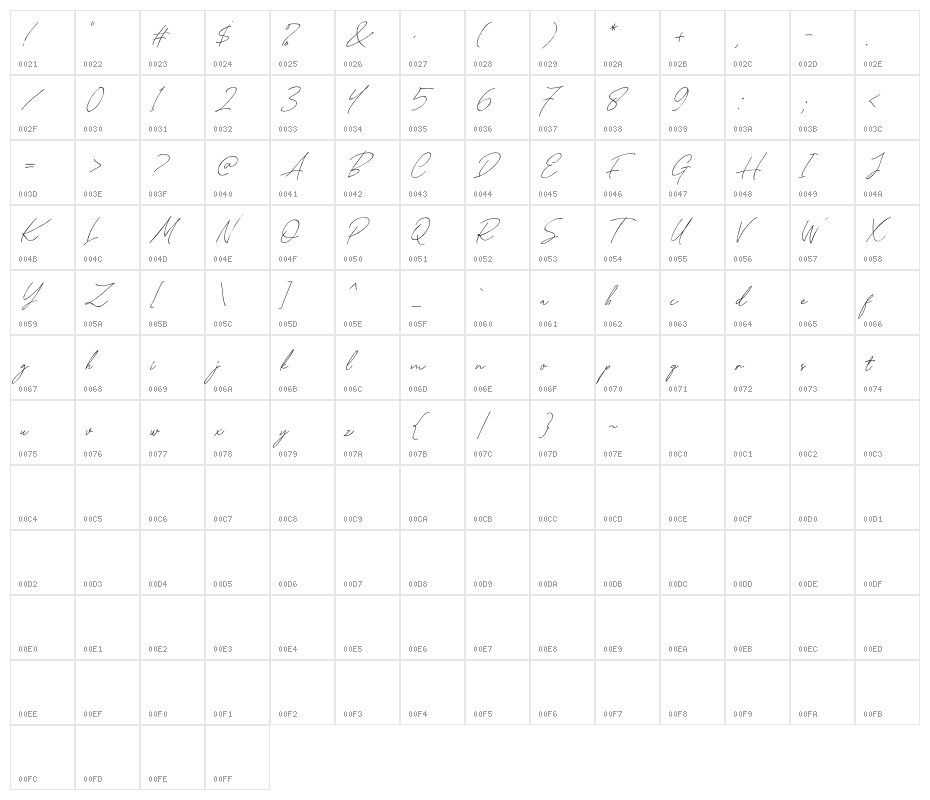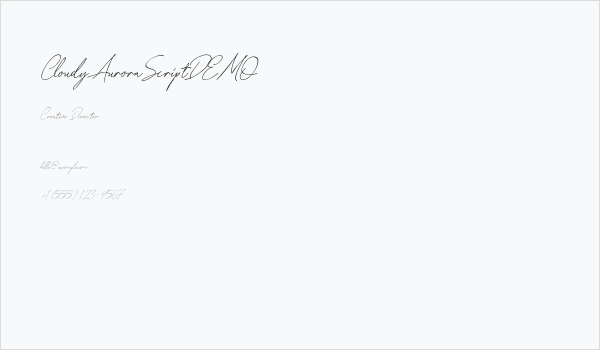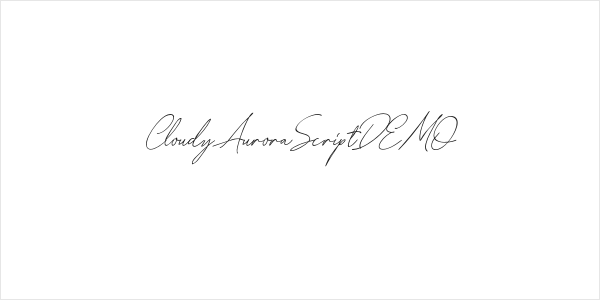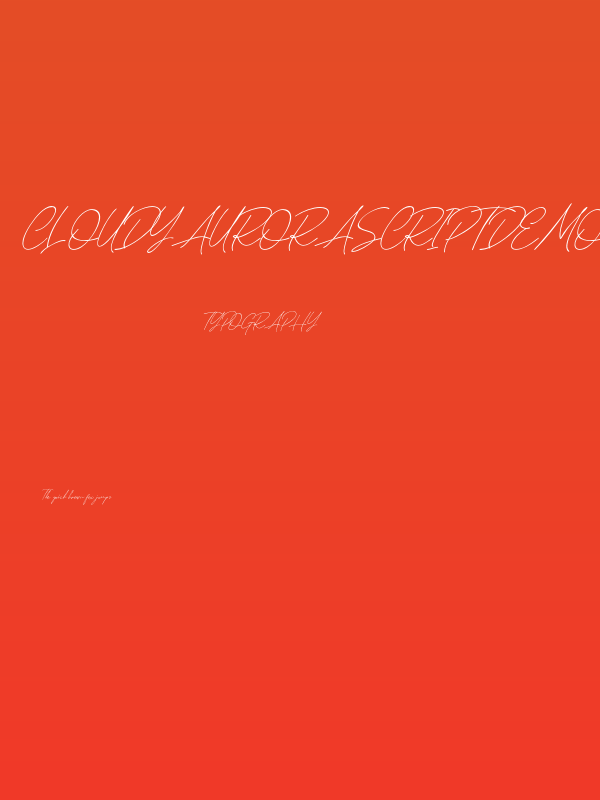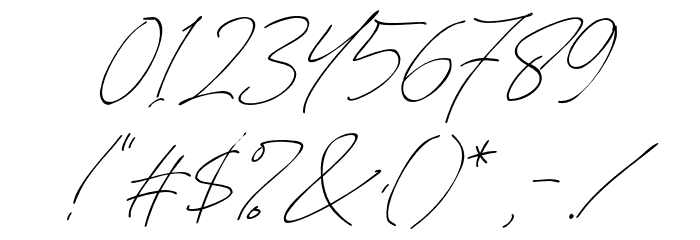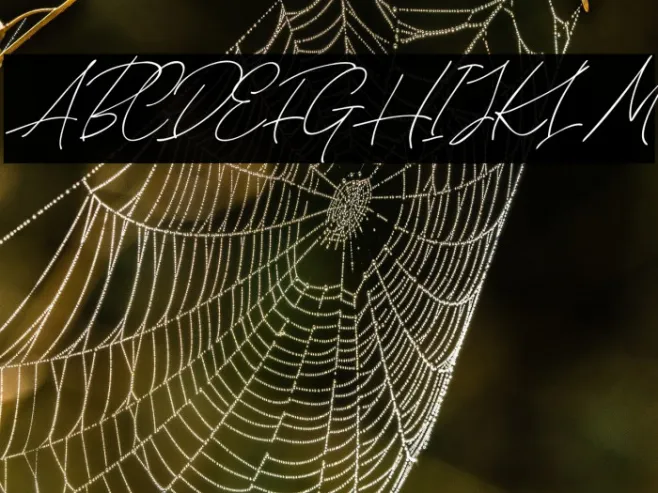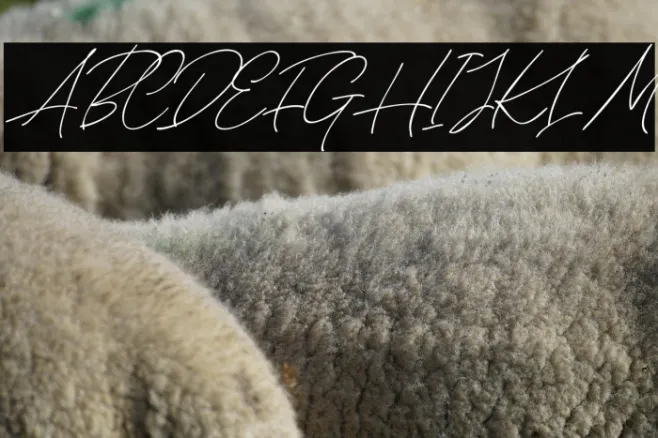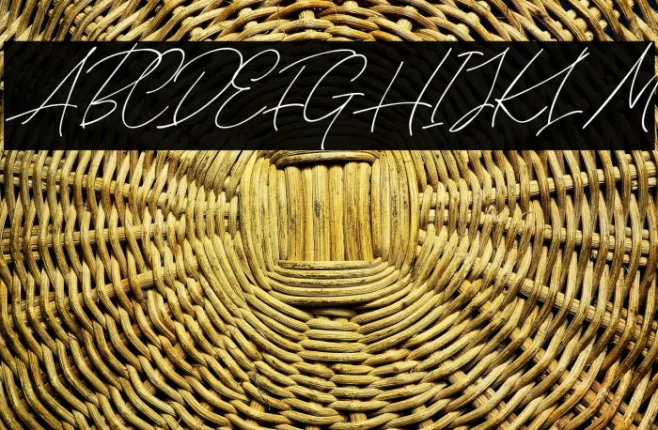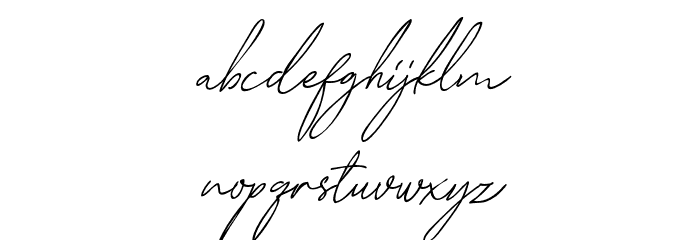
CloudyAuroraScriptDEMO Font
CloudyAuroraScriptDEMO Description
This script font exudes elegance and fluidity, characterized by its smooth, flowing lines and cursive style. The uppercase letters are tall and slightly slanted, with a graceful, handwritten appearance that adds a personal touch. The lowercase letters maintain a consistent style, with delicate loops and curves that enhance the font's overall aesthetic. The numerals are designed to match the script's elegance, featuring similar curves and a cohesive look. Special characters are seamlessly integrated, maintaining the font's fluidity and charm. This font is perfect for projects that require a touch of sophistication and a personal, handwritten feel.
| Proposed Projects | Ideal for wedding invitations, personal branding, greeting cards, and elegant packaging designs. |